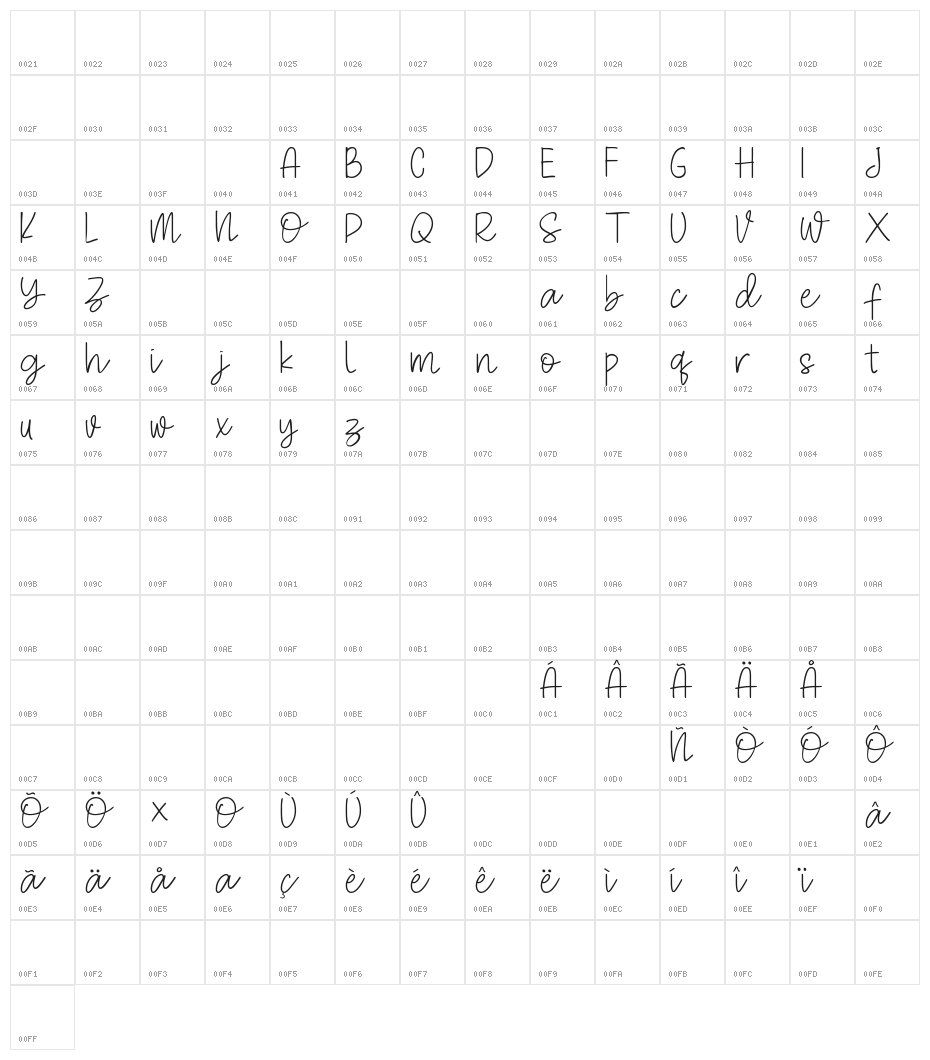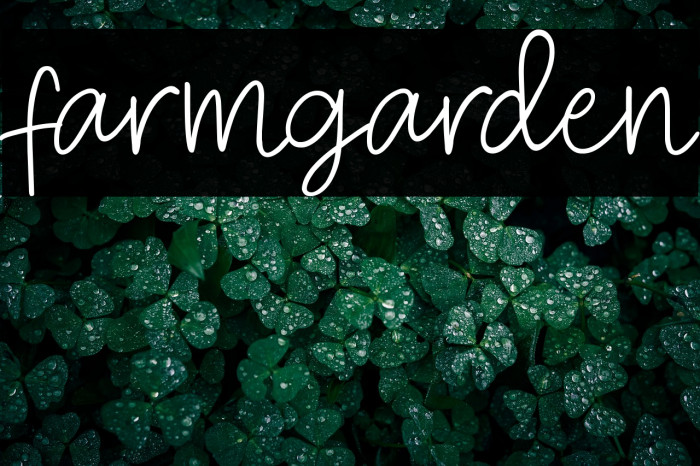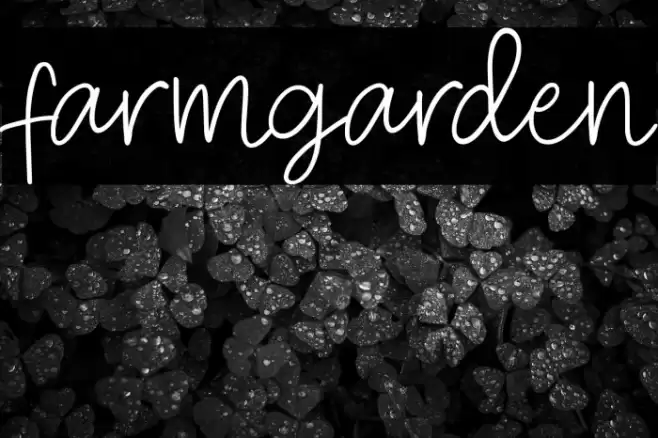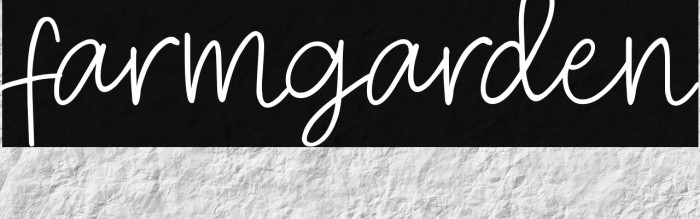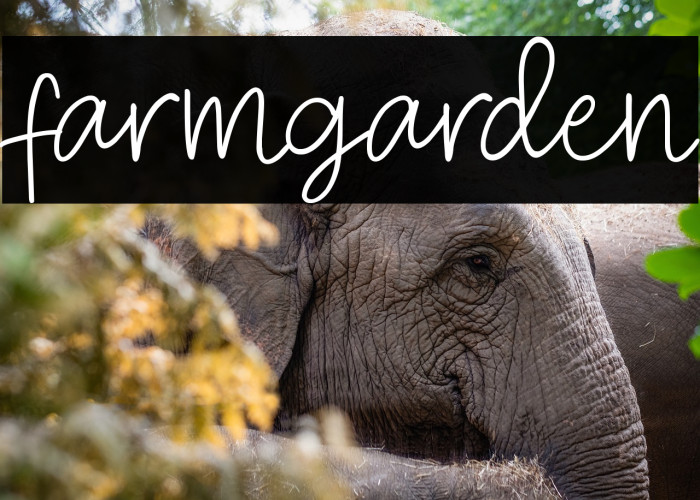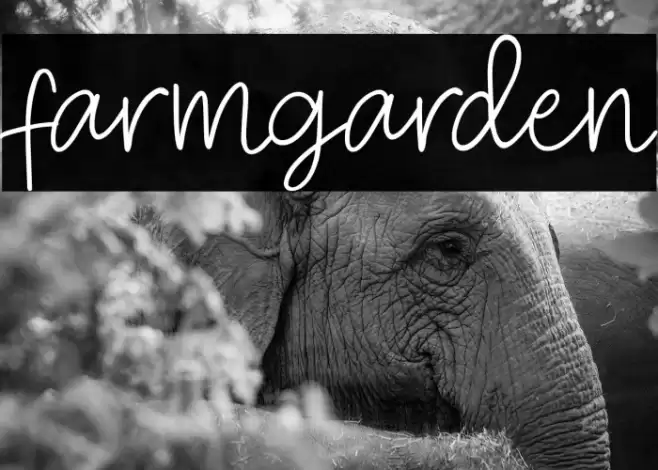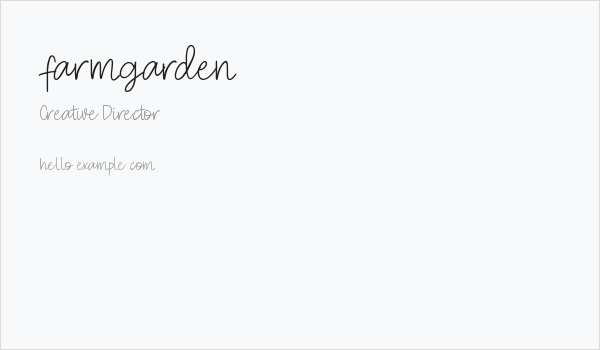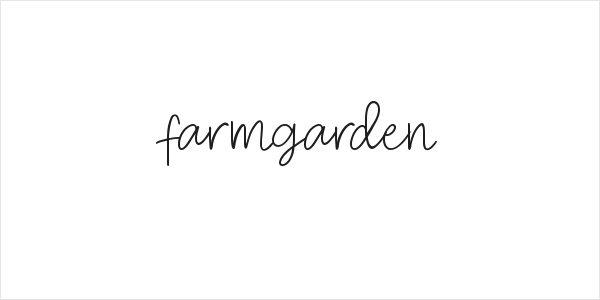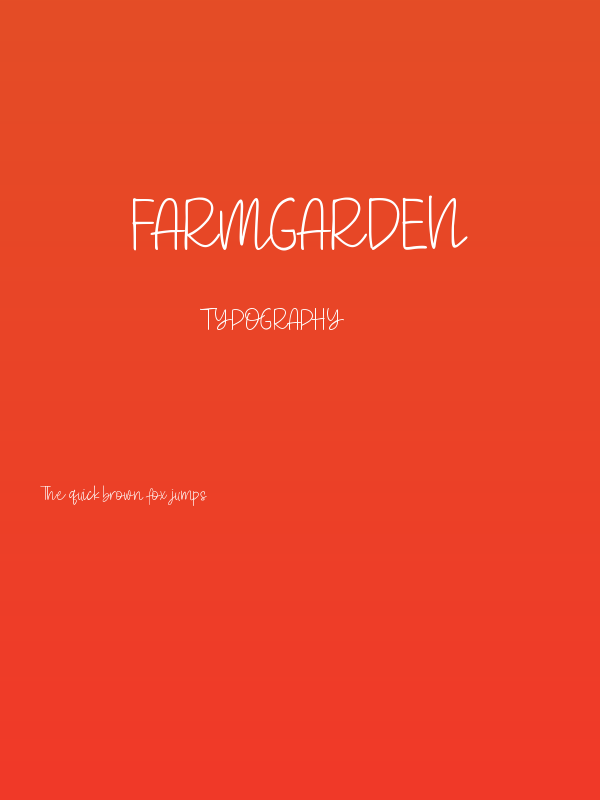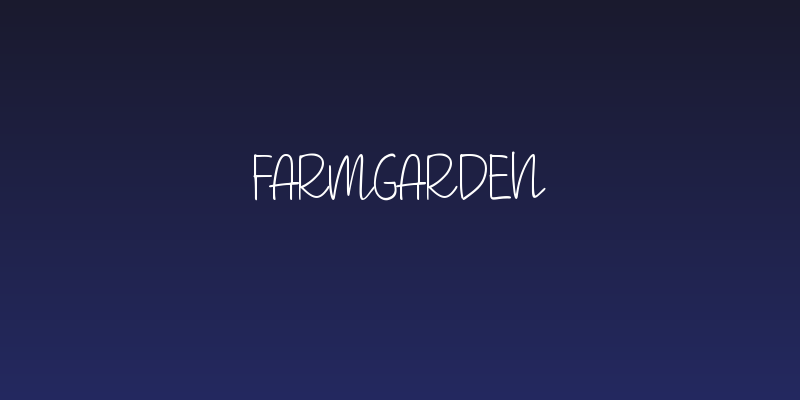
farmgarden Font
farmgarden Description
This font features a playful and casual handwritten style, characterized by its smooth, flowing lines and slightly irregular letterforms. The uppercase and lowercase letters maintain a consistent rhythm, with a natural, organic feel that mimics the look of hand-drawn script. The strokes are moderately thick, providing a balanced contrast that enhances readability while retaining a personal touch. This font exudes a friendly and approachable vibe, making it ideal for projects that require a warm and inviting aesthetic.
| Use Case | Logos, Invitations, Social Media |
| Proposed Projects | Ideal for greeting cards, invitations, personal branding, and social media graphics. |